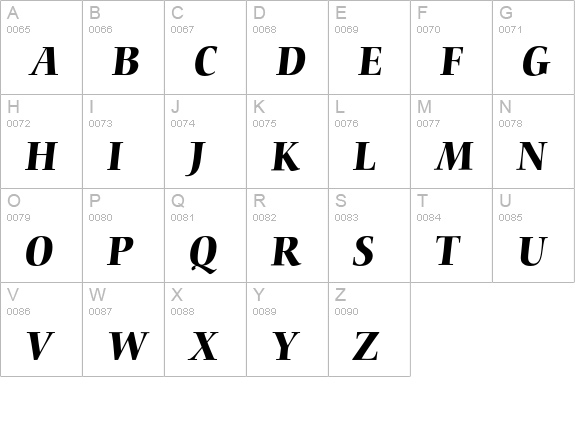
Nofret BQ Medium Italic Font Details
Nofret BQ Medium Italic is a balanced, medium-weight, italic variant in the Nofret typeface family \xE2\x80\x94 well suited to sub-headlines, navigation, and balanced editorial work.
Nofret BQ Medium Italic font exudes elegance and sophistication with its stylish slanted design. The medium weight strikes the perfect balance between boldness and finesse, making it versatile for a wide range of design projects. The italicized form adds a touch of flair and dynamism to any text, making it perfect for conveying a sense of modernity and creativity. This exquisite font is not only visually appealing but also highly legible, ensuring readability across various platforms and mediums. Whether used for branding, editorial design, or web content, Nofret BQ Medium Italic font brings a touch of class and professionalism to any project. Best of all, this font is freely available for download at FontsMarket.com, allowing designers and enthusiasts alike to access this premium typeface without any cost. Elevate your designs with the timeless charm and contemporary edge of Nofret BQ Medium Italic font today.